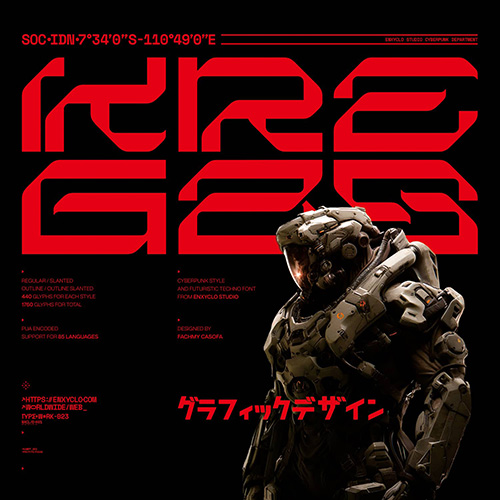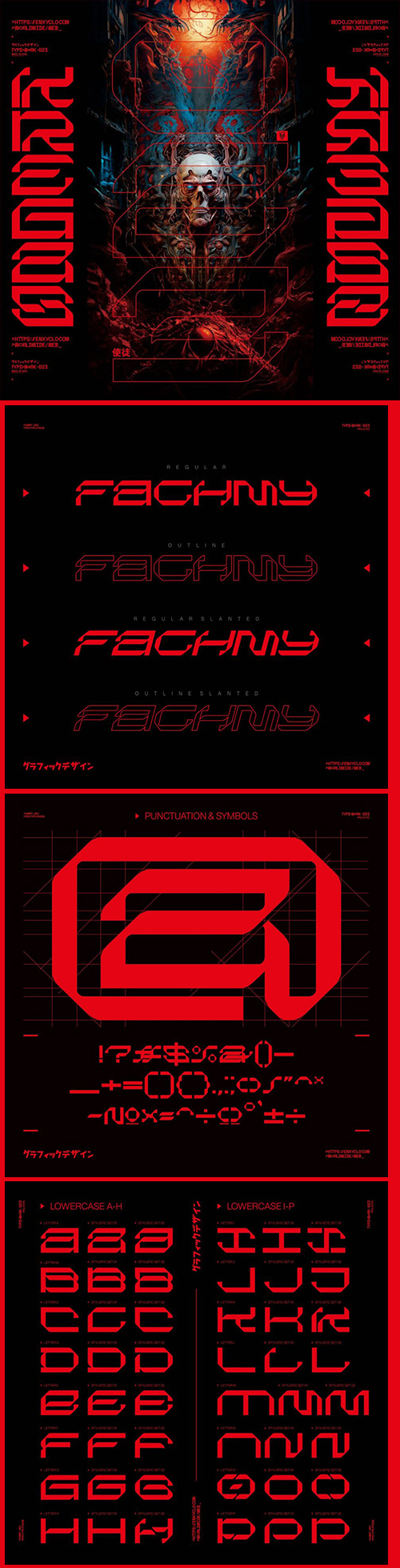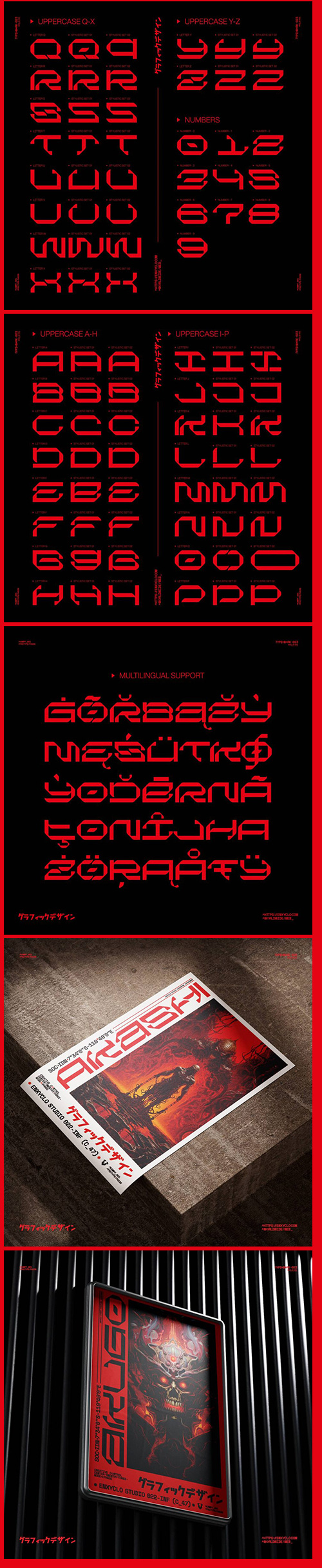
- Introducing NCL KREGAS, an extraordinary cyberpunk futuristic techno mecha font featuring 4 styles – Regular, Slanted, Outline, and Outline Slanted. Embark on a creative journey where futuristic aesthetics meet innovation, making your projects truly stand out. Whether it’s a clothing, poster craft or logo design, NCL KREGAS adds a unique flair and a touch of the extraordinary.